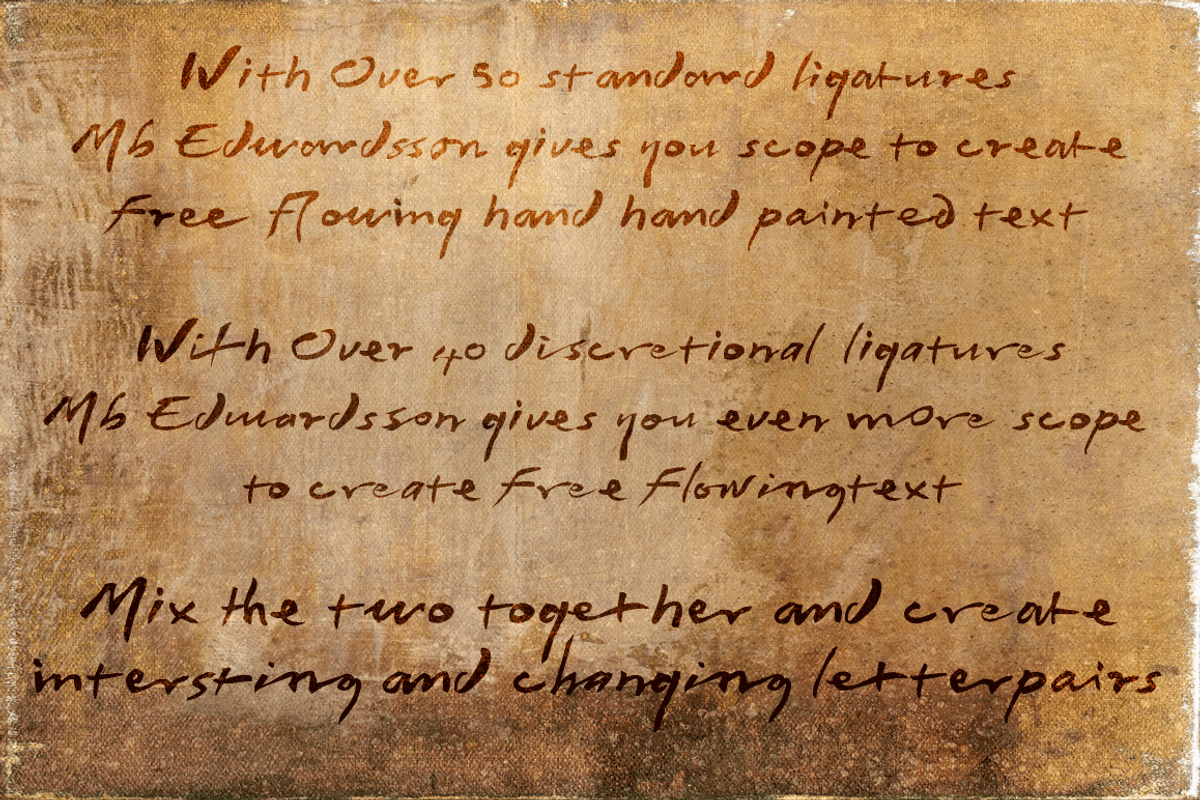
MB Edwardsson
MB Edwardsson by Ben Burford Fonts is a font selected for branding, posters, packaging, typography.
- A Hand Made hand painted font with over 100 ligatures to give the text a real free flowing and hand written feel.
- Great for wide range of applications and works best as upper and lowercase text in a range of sizes.
Why MB Edwardsson is worth a look
MB Edwardsson by Ben Burford Fonts fits naturally into Branding, posters, packaging, typography.